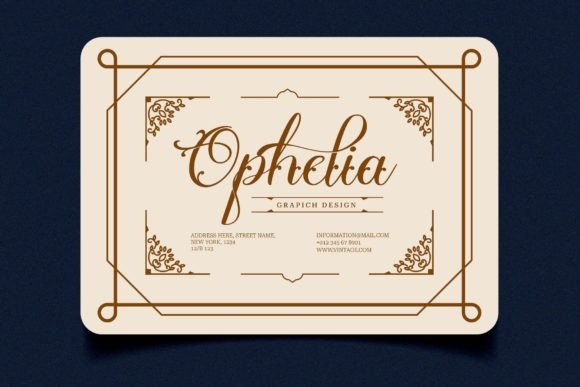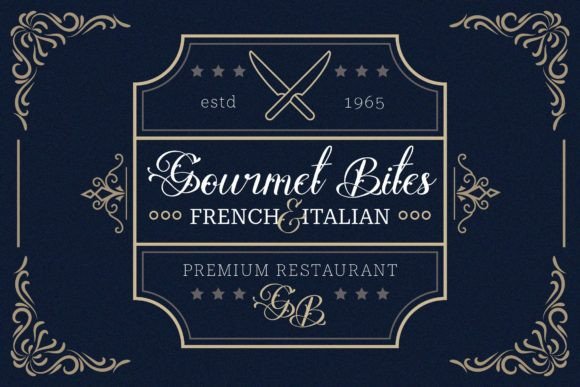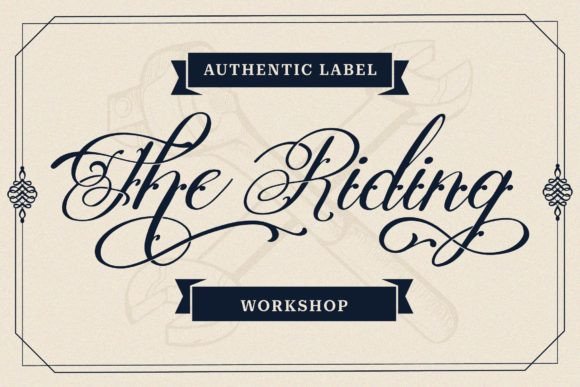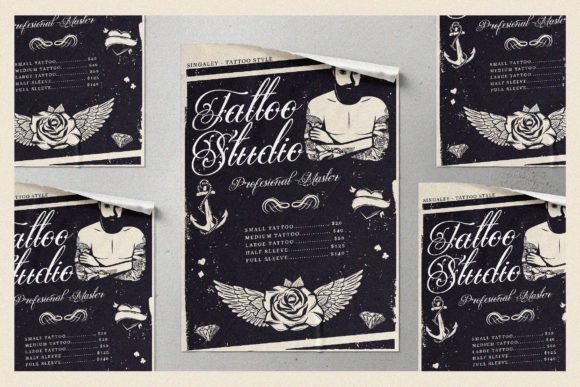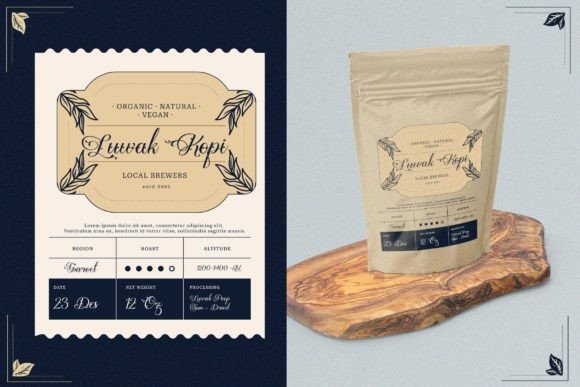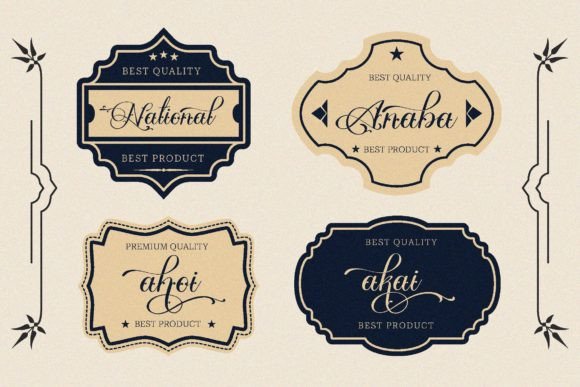
Introduction to Singaley Font
You know that moment when a design concept just clicks, and you can see the entire project unfolding in your mind? That’s what happened when I stumbled upon the Singaley Font. Its edgy, tattoo-inspired aesthetic immediately spoke to me, and I knew I had to dive deeper. As a designer, I’m always on the lookout for fresh, high-quality design resources that can elevate my creative projects and give them that extra oomph.
The Singaley Font is more than just a stylish font – it’s a versatile design resource that’s perfect for a wide range of projects, from logos and branding to homeware designs and product packaging. With its unique, tattoo-style flair, it’s sure to add a touch of sophistication and creativity to any project. Plus, with a transparent background and free download available, it’s a valuable asset for designers of all levels.
Singaley Font Key Features
- High-quality, elegant script font suitable for creative projects and design resources.
- Designed to provide a unique, handwritten feel to any text, making it perfect for invitations, quotes, and other creative applications.
- Includes a wide range of characters, including uppercase and lowercase letters, numbers, and punctuation marks, to provide versatility in design applications.
Honest Review: Singaley Font
I recently had the chance to experiment with the Singaley Font, and I must say it’s a solid addition to any design resource. The free download process was seamless, and I was able to get started on my creative project in no time.
- High-quality typography: The Singaley Font boasts crisp, clean lines that make it perfect for a variety of design applications.
- Flexible: It works well for both digital and print-based projects, thanks to its compatibility with various software.
- Easy to read: The font’s clear and simple design makes it easy on the eyes, even for longer blocks of text.
- Customizable: You can adjust the font’s size, color, and opacity to fit your design’s unique requirements.
One thing to keep in mind is that the Singaley Font doesn’t offer a transparent background option, which might be a limitation for some designers working on projects that require a more subtle look.
Overall Impression:
The Singaley Font is a great resource for designers looking for a high-quality, easy-to-use font. While it may not offer a transparent background, its many strengths make it a valuable addition to any design toolkit.
The Singaley Font is a free download design resource that can be used in various creative projects. It’s available for free download and features a high-quality, transparent background that makes it perfect for use in logos, branding, and other visual identity projects.
Use the Singaley Font in combination with other design elements to create a cohesive and visually appealing design.
Experiment with different font sizes, colors, and styles to find the perfect combination for your project.
The Singaley Font is commonly used in:
Logo design
Branding
Visual identity projects
Print design
Web design
Alternatives to Singaley Font
Great Vibes Font compares to Singaley Font in its elegant and sophisticated style, but Great Vibes Font has a more refined and polished look.
The Dancing Script Font is a modern, cursive font perfect for designs that require a touch of whimsy and playfulness. It’s great for creative projects that need a high-quality, handwritten look with a more casual tone. Dancing Script Font offers a free download option and is available in various weights and styles. When to use: Social media graphics, blog posts, and other casual designs.
Q: Is the Singaley Font high quality?
Yes, the Singaley Font is a high-quality font designed for use in creative projects. It features clear, legible characters and a professional design aesthetic. The font is suitable for use in a variety of contexts, from business and marketing materials to digital products and publications.